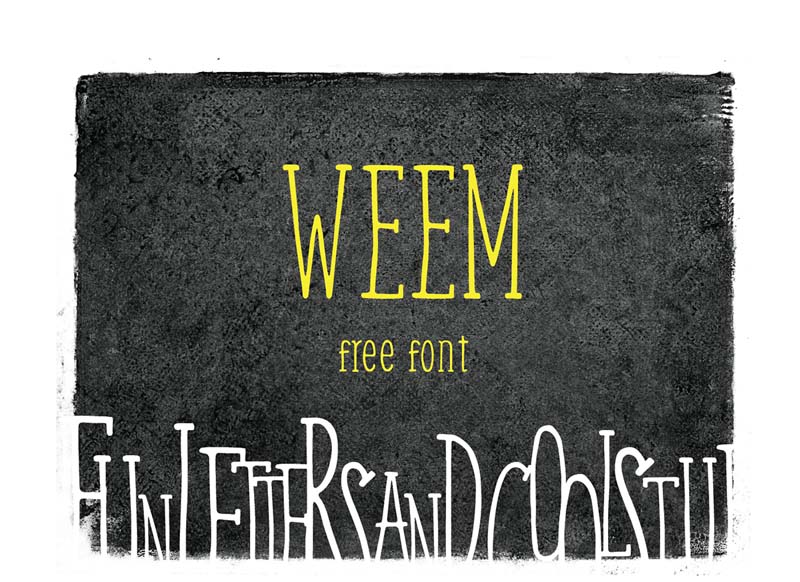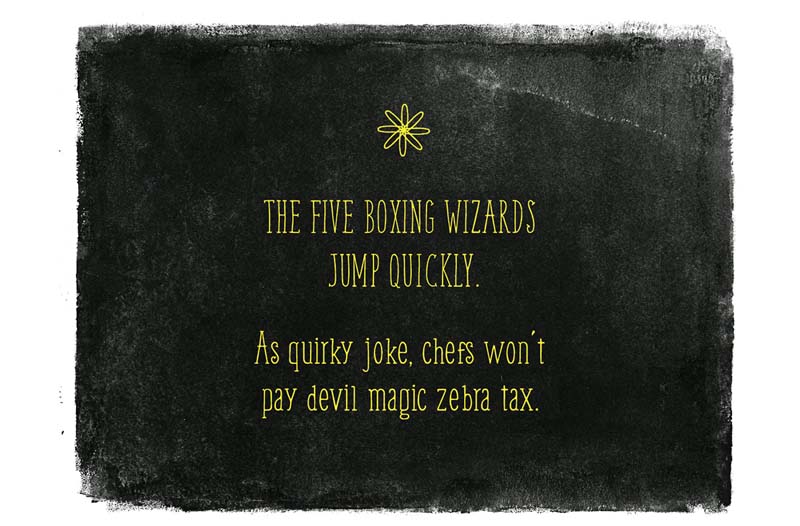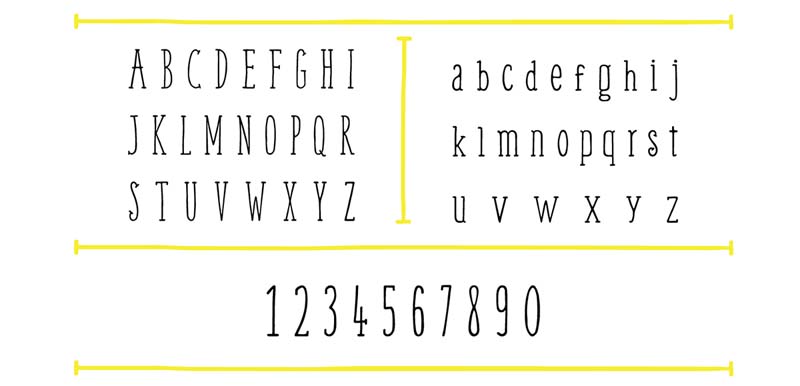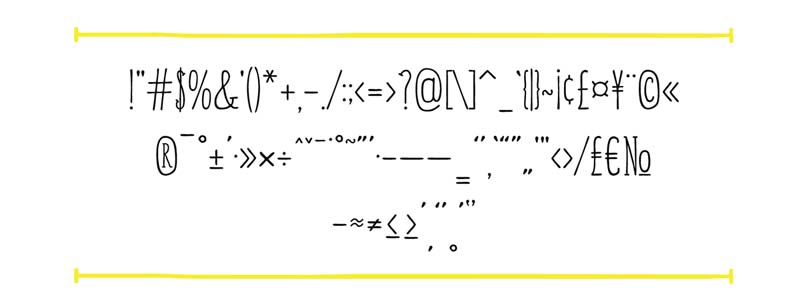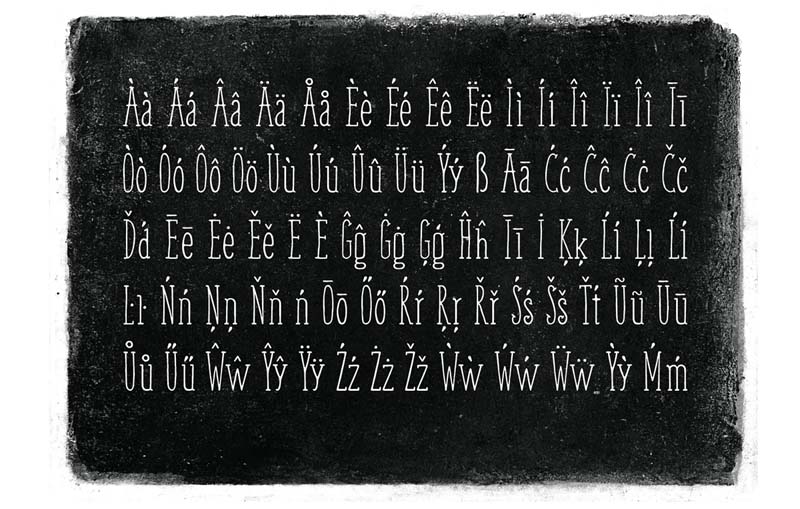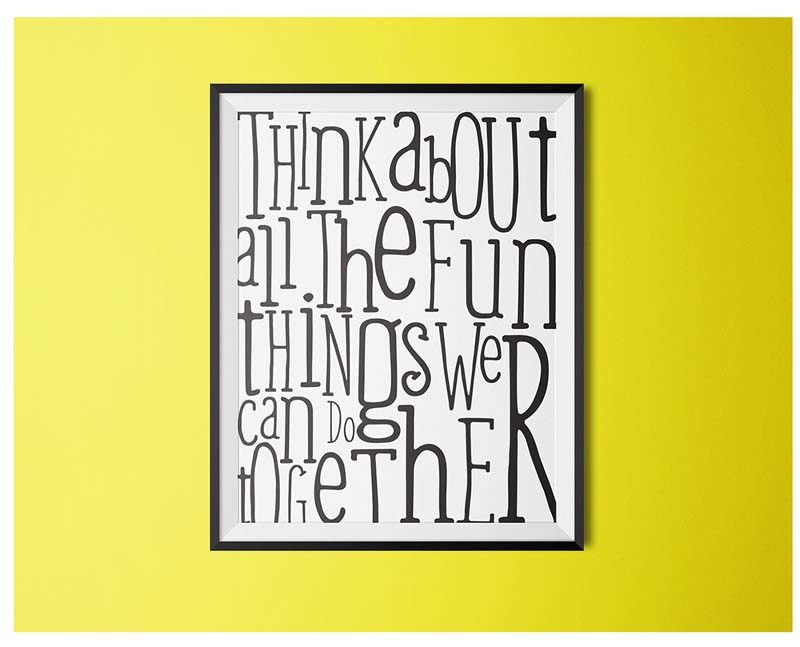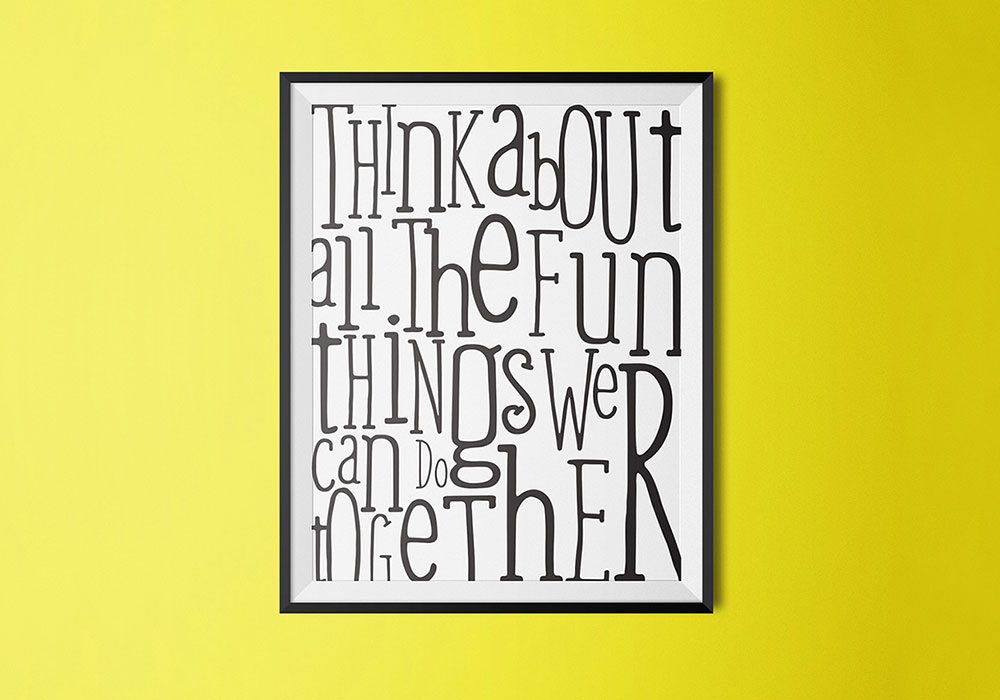
Weem is a Serif handwriting font. Although this is hazy but yet has stout bone beneath which is truly superlative for full of fun,
full of life and staid designs. I can also be used as small text and for headlines.